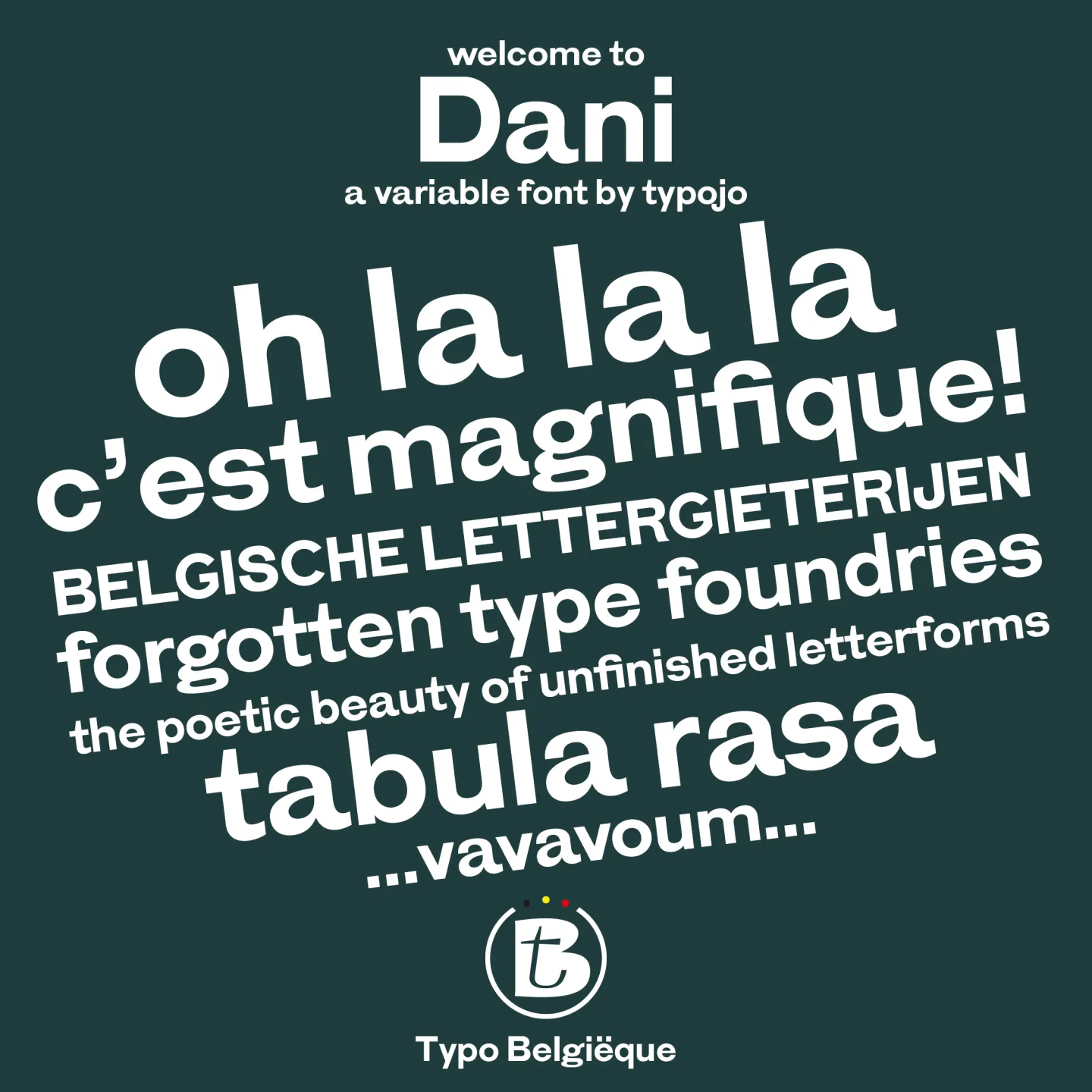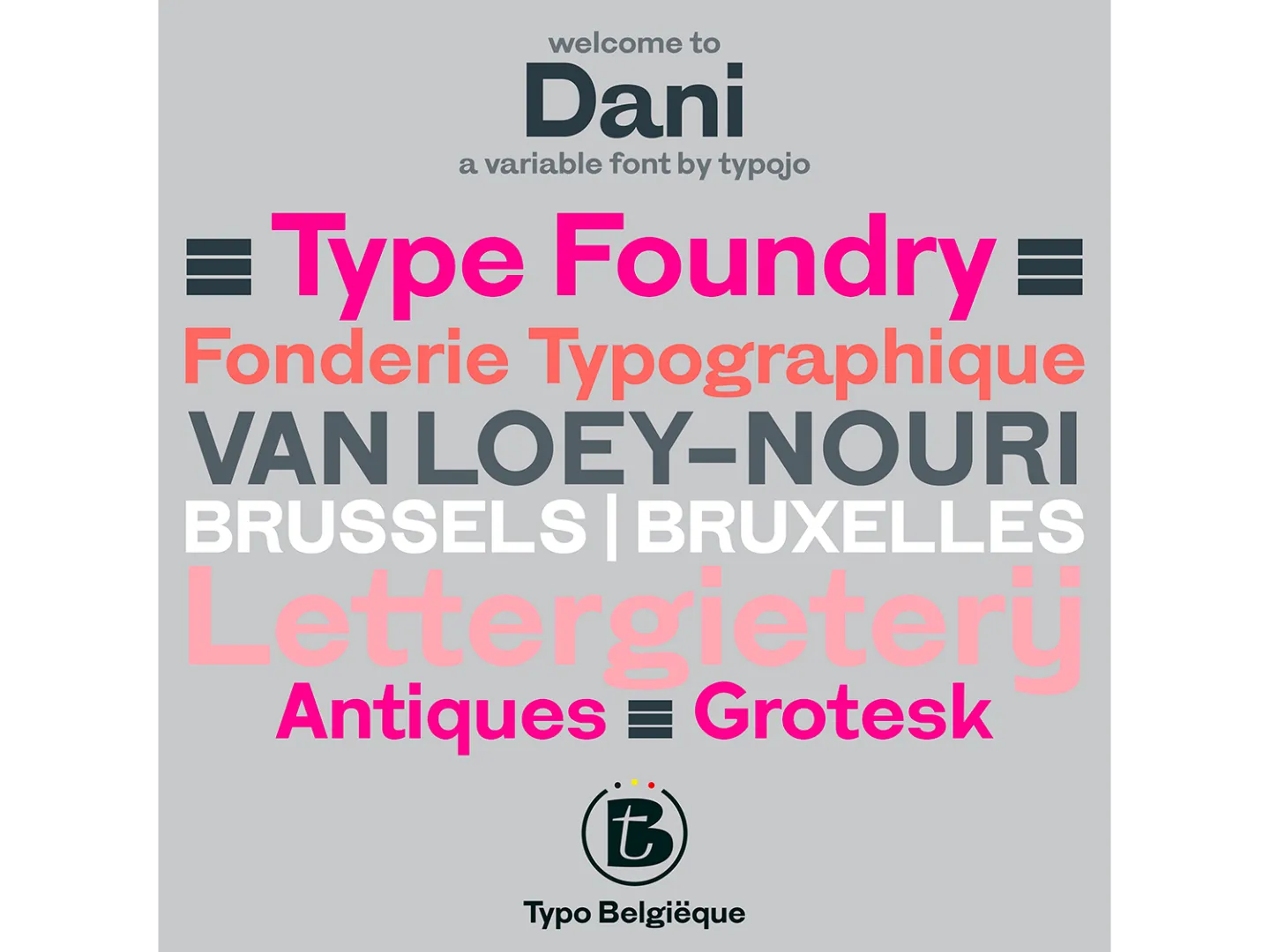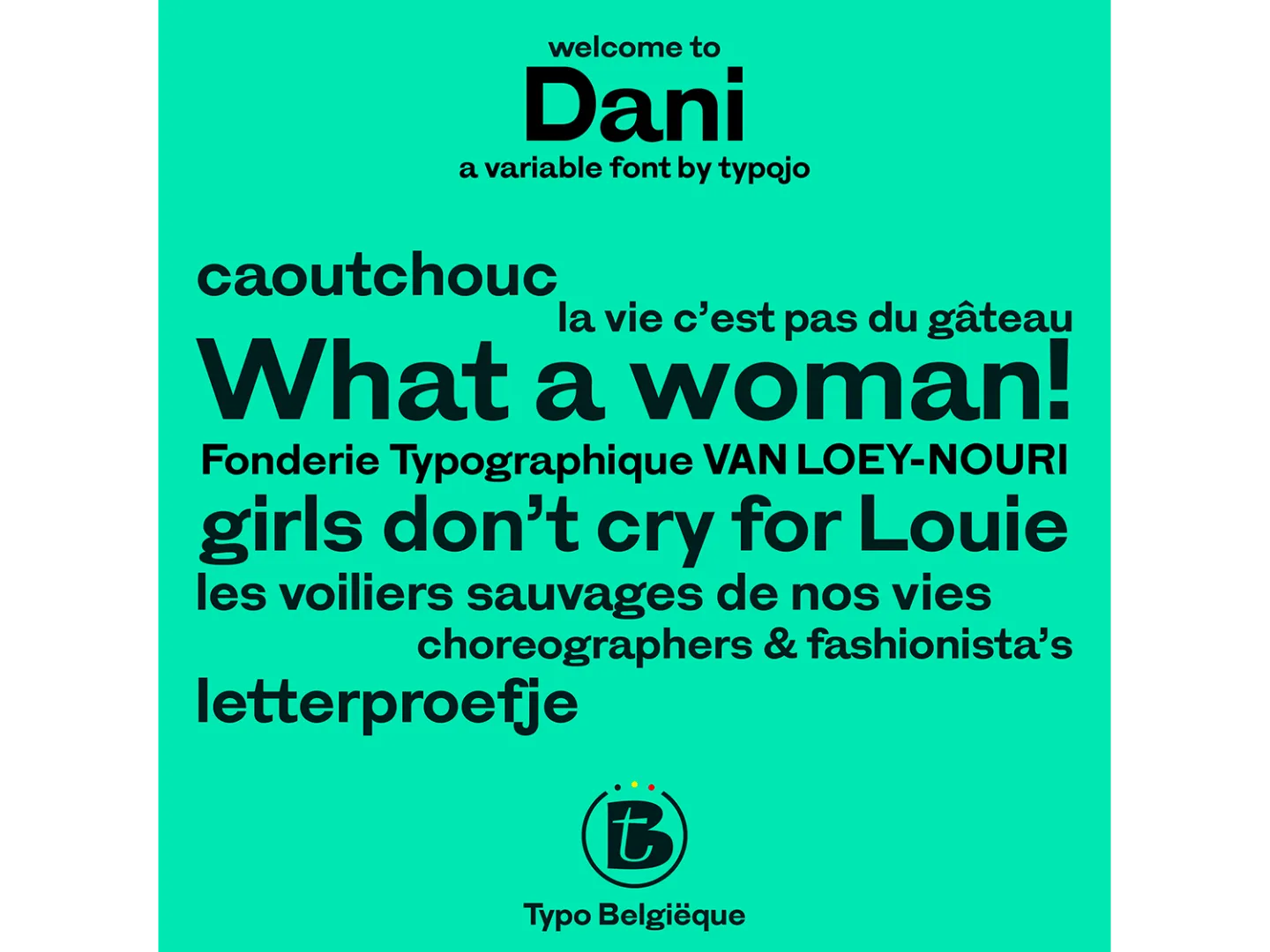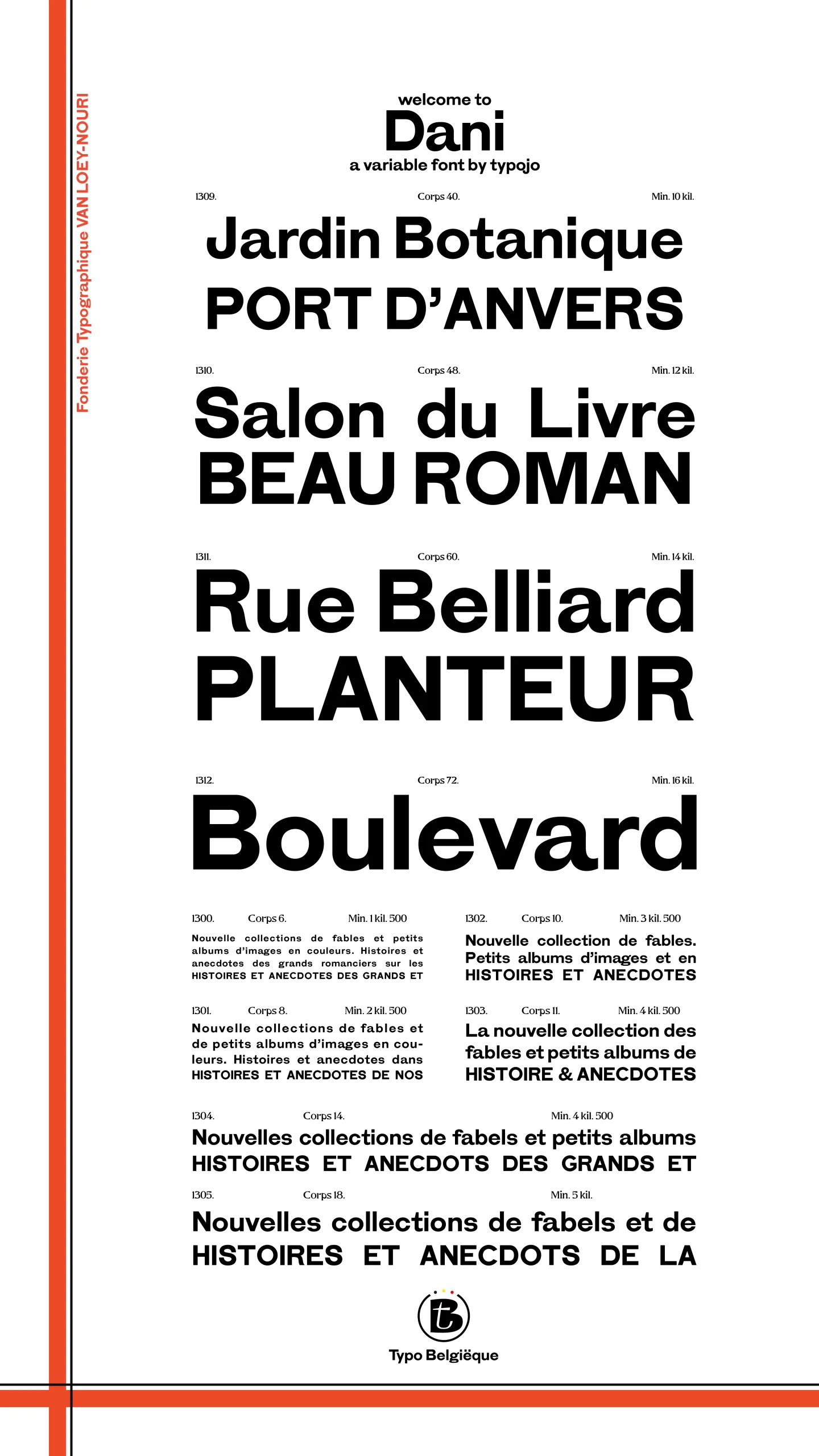
Welcome to Dani, a unique sans serif type revival that originates from the nineteenth-century Brussels-based type foundry of Van Loey-Nouri.
Dani is part of ‘Typo Belgiëque’, a practice oriented scientific research & type design project examining the visual design identity of Belgium in the nineteenth and twentieth century that breathes new life into Belgium’s historical typeface families. ◊